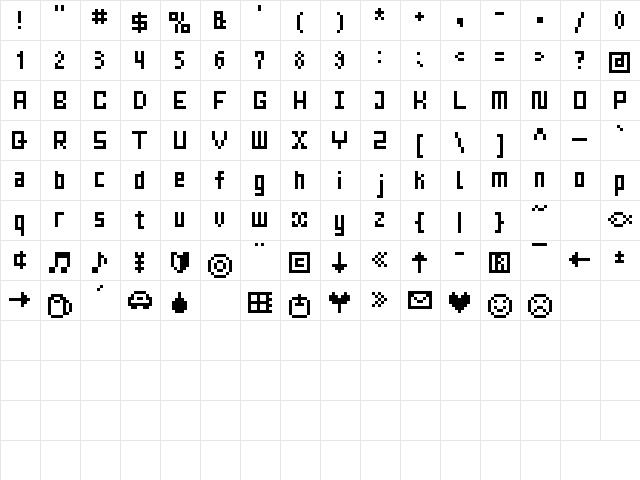
Mrs Kichinto Regular
Design Context for Mrs Kichinto Typeface
Mrs Kichinto offers clean, dependable letterforms without strong stylistic allegiance, making it a practical choice for designers who need flexibility.